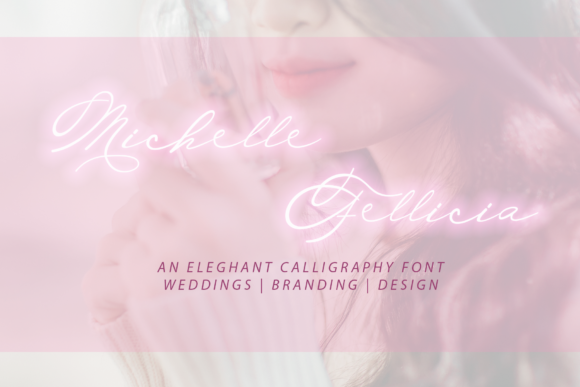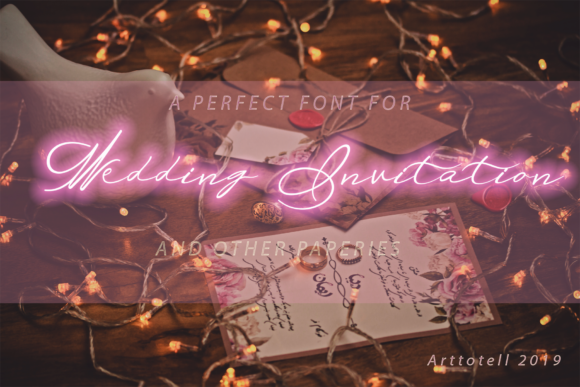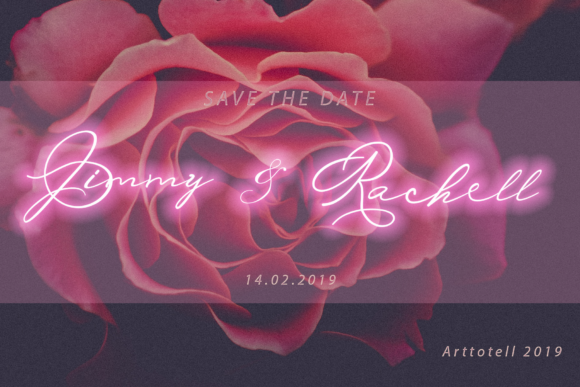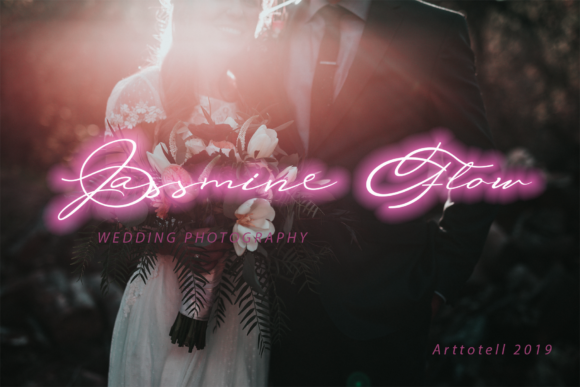
About Michelle Fellicia Font
The Michelle Fellicia is a beautiful handwritten font with a natural and elegant calligraphy look. It can be used in a wide range of design projects and is easy to use.
It has a stylish signature style and includes 4 unique styles which gives you the opportunity to create multiple unique designs in an instant.
It’s great for unique branding, photo overlays, watermarks, business cards, invitations, wedding, photography, fashion, and much more!